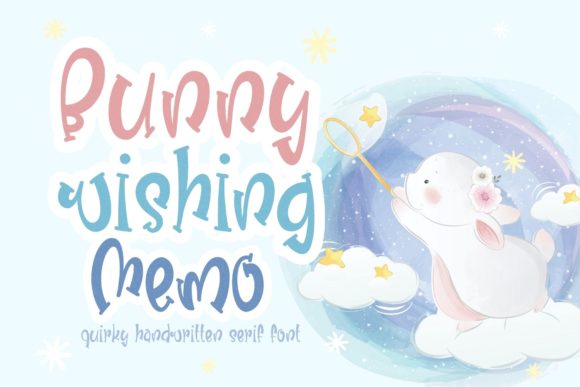
The Magical World of Bunny Wishing Memo Font
I’ll never forget the time I was working on a children’s book design project, and I just couldn’t find the right font to bring the story to life. The client wanted something playful, yet elegant, and I was on the verge of giving up. That’s when I stumbled upon the Bunny Wishing Memo font, and it was love at first sight! ✨ In this article, I’ll share my experience with this adorable font, its features, and how you can make the most of it in your design projects.
An Honest Review of Bunny Wishing Memo
- ✨ Its friendly and approachable feel makes it perfect for a wide range of design projects, from headings and blogs to branding and wedding designs.
- ✅ The font is incredibly versatile, and its quirky personality shines through in children’s designs, t-shirts, mugs, posters, and more.
- 🎉 Bunny Wishing Memo has a unique ability to add a touch of whimsy and fun to any design, making it perfect for creative hobbyists and professional designers alike.
While Bunny Wishing Memo is an amazing font, there are a few things to keep in mind: ⚠️
- 🤔 Some of the glyphs and special characters might not work well in all design software, so be sure to test them before finalizing your project.
- ⚠️ The font might not be suitable for very formal or corporate designs, as its playful personality might not align with the tone you’re trying to convey.
The Story Behind Bunny Wishing Memo
Bunny Wishing Memo was designed with love and care by a talented font creator who wanted to bring a touch of whimsy and fun to the world of typography. The font’s friendly feel and quirky personality make it perfect for designers and creative hobbyists who want to add a personal touch to their projects.
| Font Name | Bunny Wishing Memo Font |
| Author | AllaCreativa |
Q: What type of projects is Bunny Wishing Memo best suited for?
A: Bunny Wishing Memo is versatile and can be used for a wide range of projects, including children’s designs, t-shirts, mugs, posters, branding, logos, and more.